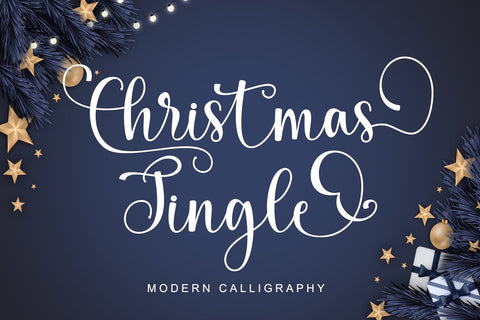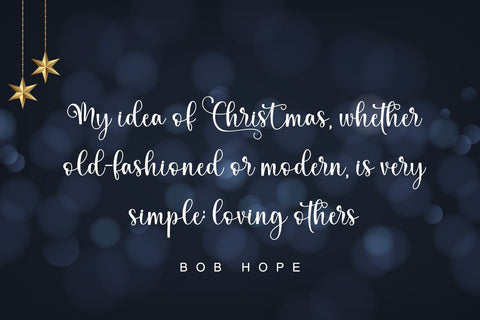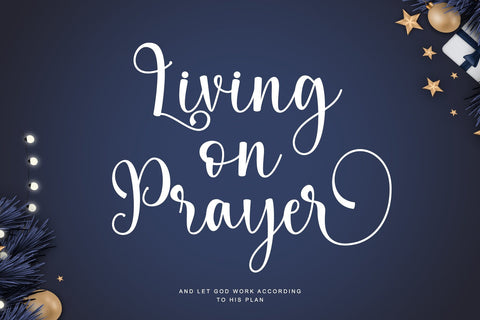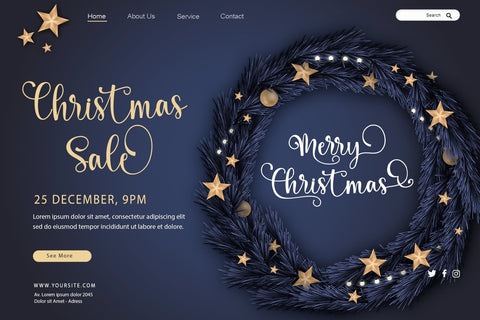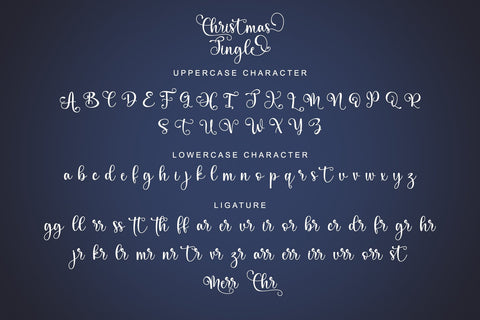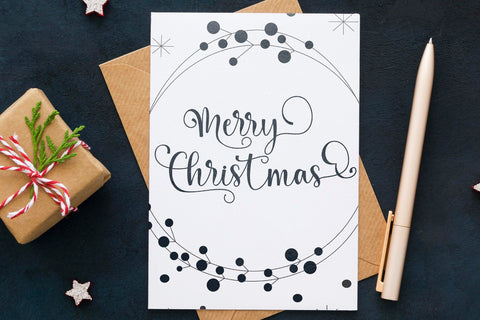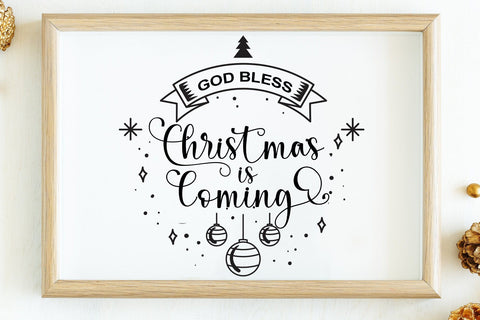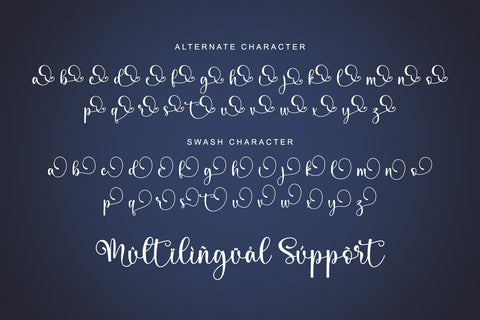
Christmas JIngle
Christmas JIngle is a beautiful and romantic handwritten font. It looks amazing on thank you cards, quotes, wedding invitations, greeting cards, business cards, advertising, logos, and any other design that requires a touch of handwriting. No matter the topic, this font will be an incredible asset to your fonts’ library, as it has the potential to elevate any creation. This font is PUA encoded which means you can access all the glyphs and swashes easily!
- Support multilingual; ä ö ü Ä Ö Ü ß ¿ ¡
- Numerals & Punctuation
- lowercase and uppercase letters
- Alternate, Swash & Ligature